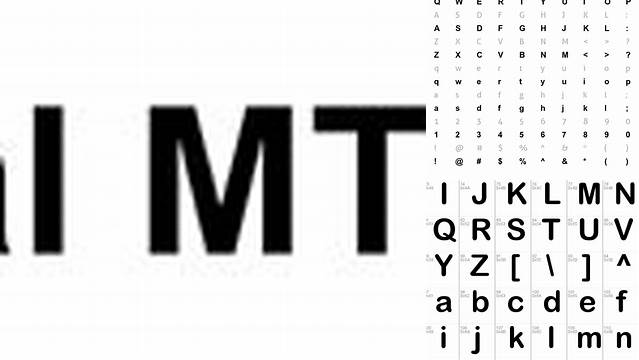
Are you on the hunt for the Arial MT Bold font? Well, you've landed in the right spot! This classic typeface is a staple in the design world, known for its clean lines and impactful presence. In this article, we're going to dive deep into everything you need to know about Arial MT Bold, including where to find it for free, how to use it effectively, and why it remains such a popular choice for designers and creators alike. So, let's get started, guys!
What is Arial MT Bold?
Before we jump into the download details, let's talk about what makes Arial MT Bold so special. This font is part of the Arial family, a widely used sans-serif typeface designed in 1982 by Patricia Saunders and Robin Nicholas for Monotype Typography. Arial was created as a cost-effective alternative to Helvetica, and it has since become one of the most ubiquitous fonts in the world. Its clean, straightforward design makes it highly legible across various media, from print to digital.
Arial MT Bold, in particular, is the bolder version of the standard Arial font. The bold typeface adds emphasis and weight, making it ideal for headlines, titles, and other elements that need to grab attention. Its strong presence ensures that your text stands out, whether you're designing a poster, creating a website, or formatting a document. The bold variant retains the core characteristics of Arial, such as its uniform strokes and slightly squared curves, while providing a more assertive visual impact. This makes it an excellent choice for situations where clarity and prominence are crucial. Arial MT Bold's versatility extends to both body text and display purposes, making it a reliable option for a wide range of design projects. Its legibility is maintained even at smaller sizes, ensuring that your message remains clear and readable regardless of the application. Furthermore, the font's widespread availability and compatibility across different platforms and devices make it a practical choice for designers and businesses looking to maintain consistency in their branding and communications. The robust nature of Arial MT Bold means it holds up well in various file formats and printing processes, ensuring that your text appears as intended every time. Overall, Arial MT Bold's blend of functionality and aesthetic appeal makes it a cornerstone of modern typography, suitable for both professional and personal use.
Key Characteristics of Arial MT Bold
- Weight: The bold weight gives it a strong, assertive appearance.
- Legibility: Highly readable in both print and digital formats.
- Clean Design: Its sans-serif structure provides a modern, uncluttered look.
- Versatility: Suitable for headlines, body text, and various design applications.
Why Use Arial MT Bold?
So, why should you choose Arial MT Bold over other fonts? There are several compelling reasons. First and foremost, its readability is exceptional. Whether you're working on a website, a presentation, or a printed document, Arial MT Bold ensures that your text is clear and easy to read. This is crucial for maintaining your audience's attention and conveying your message effectively. Secondly, Arial MT Bold is incredibly versatile. It works well in a variety of contexts, from formal reports to creative designs. Its neutral appearance makes it a great choice for projects where you want the content to take center stage, rather than the font itself. The bold variant is particularly useful for headings and titles, where you need to make a strong visual statement. This font's adaptability also makes it a favorite among designers who need a reliable option that can be used across different platforms and media. Whether you're designing for print, web, or mobile, Arial MT Bold ensures consistency in your typography. Furthermore, its widespread availability means that you can be confident that your audience will be able to view your text as intended, regardless of the device or operating system they are using. The bold weight of Arial MT Bold adds an extra layer of emphasis, making it ideal for highlighting key information and creating visual hierarchy within your designs. Overall, the combination of legibility, versatility, and accessibility makes Arial MT Bold a valuable asset in any designer's toolkit.
Benefits of Using Arial MT Bold
- Enhanced Readability: Makes text easy to read across different media.
- Versatile Application: Suitable for various design projects and contexts.
- Strong Emphasis: Bold weight draws attention to important text elements.
- Professional Look: Clean and modern appearance enhances credibility.